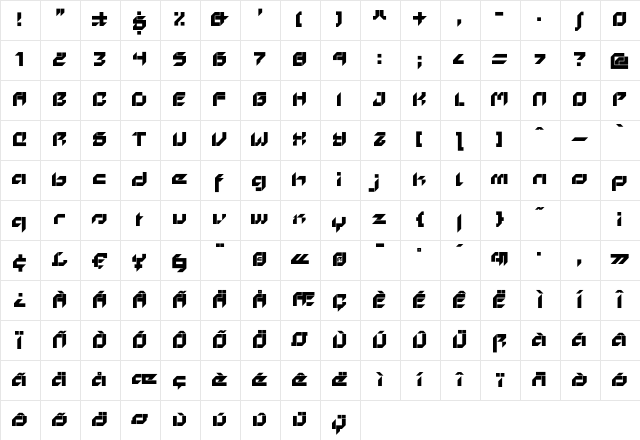
Cyberwar Offense Free Font
Cyberwar Offense
Style: Offense
Design Context for Cyberwar
Cyberwar has a distinctly futuristic character, with geometric precision and clean angles that feel at home in technology, gaming, and sci-fi contexts.